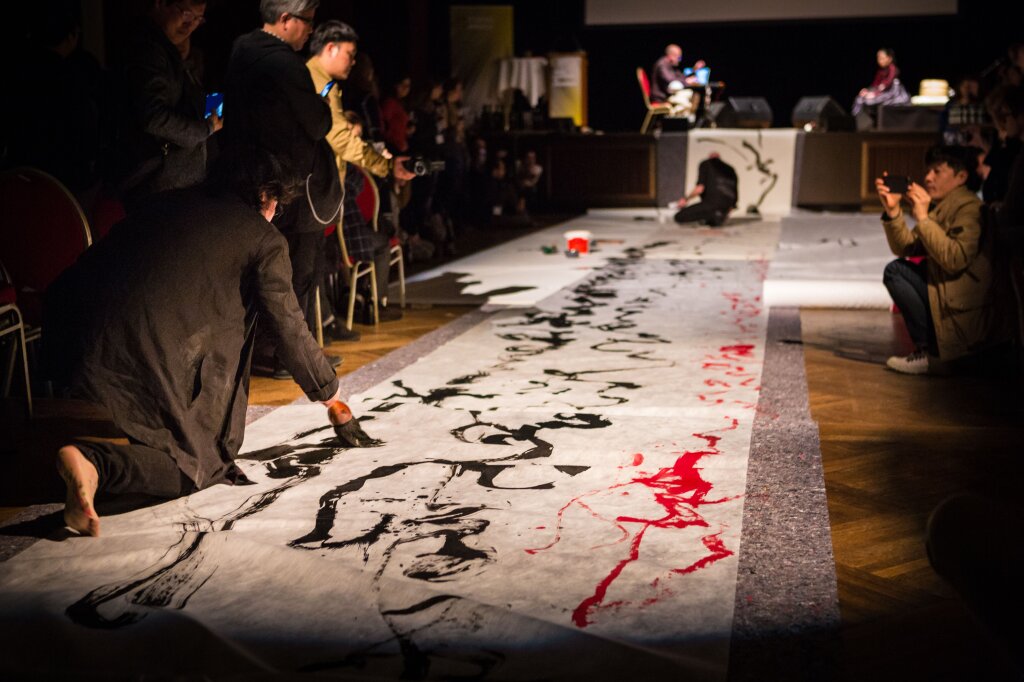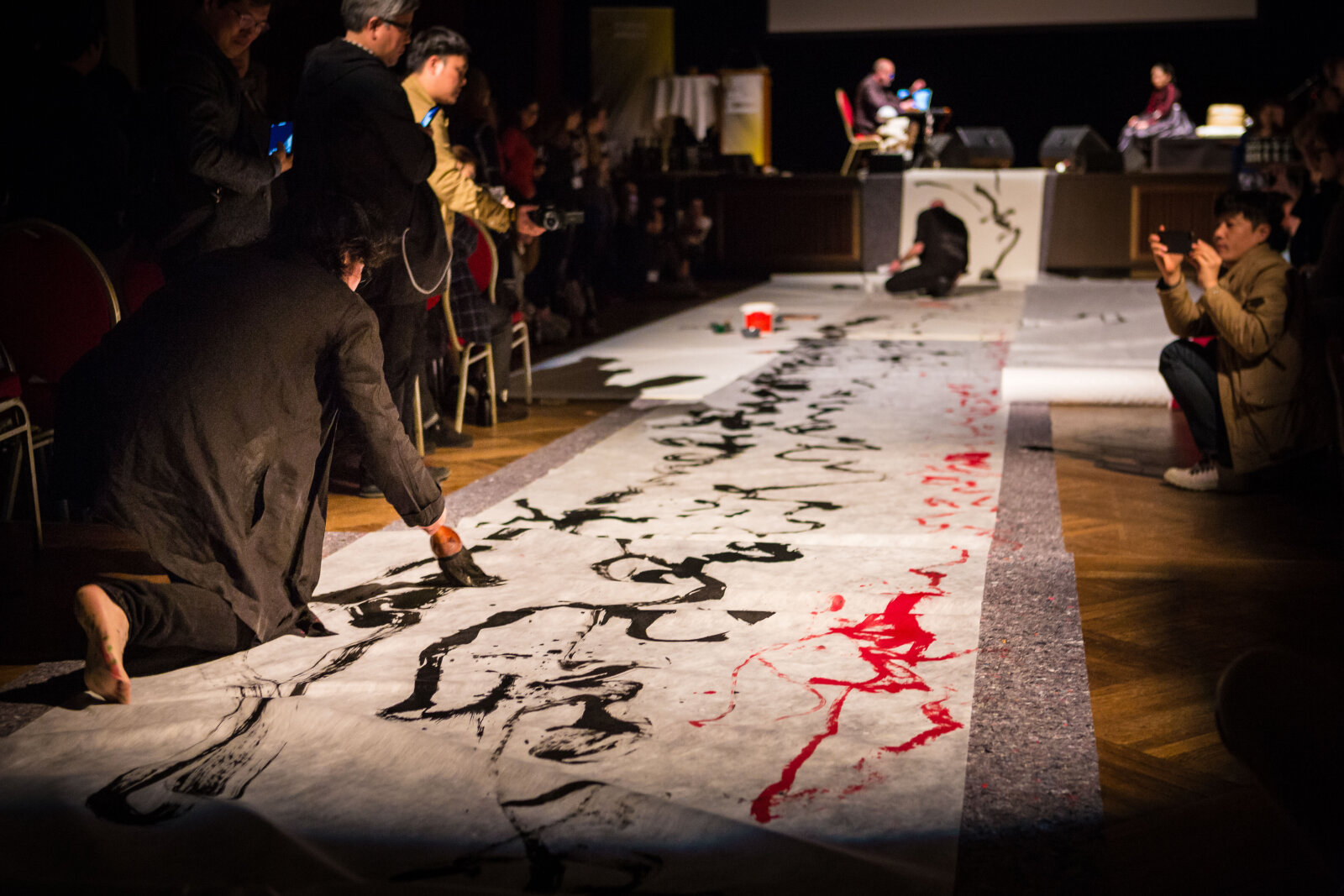
The Art of Calligraphy in Motion: A Look Back at GRANSHAN 2017
At the GRANSHAN Conference 2017 – Living Letters, two esteemed calligraphers, Ruben Malayan and Timothy Donaldson, shared the stage for a remarkable improvised calligraphy performance. This unique encounter showcased the expressive potential of letterforms, demonstrating the dynamic interplay between tradition and experimentation in contemporary calligraphy.
Ruben Malayan, an Armenian calligrapher, designer, and visual artist, is renowned for his mastery of Armenian script and his ability to transform letters into powerful visual narratives. His work reflects a deep understanding of historical letterforms while pushing the boundaries of artistic expression.
Timothy Donaldson, a British calligrapher, type designer, and educator, is known for his innovative and gestural approach to lettering. His work explores the fluidity of calligraphy, merging formal structure with expressive movement.
Their collaboration at GRANSHAN 2017 was an exploration of the written form as a living, evolving art. The performance captured the essence of calligraphy as both a disciplined craft and a spontaneous act of creativity.
About the GRANSHAN Conference
Since its inception, GRANSHAN has been dedicated to advancing knowledge about scripts and elevating the quality of type design beyond Latin. Through a diverse program of conferences, workshops, lectures, panel discussions, study trips, and exhibitions, GRANSHAN has established itself as a global platform for the exchange of expertise and ideas in the field of multilingual typography and calligraphy.
As GRANSHAN continues to foster dialogue and innovation in script culture, its past events remain a testament to the richness and diversity of the typographic world.